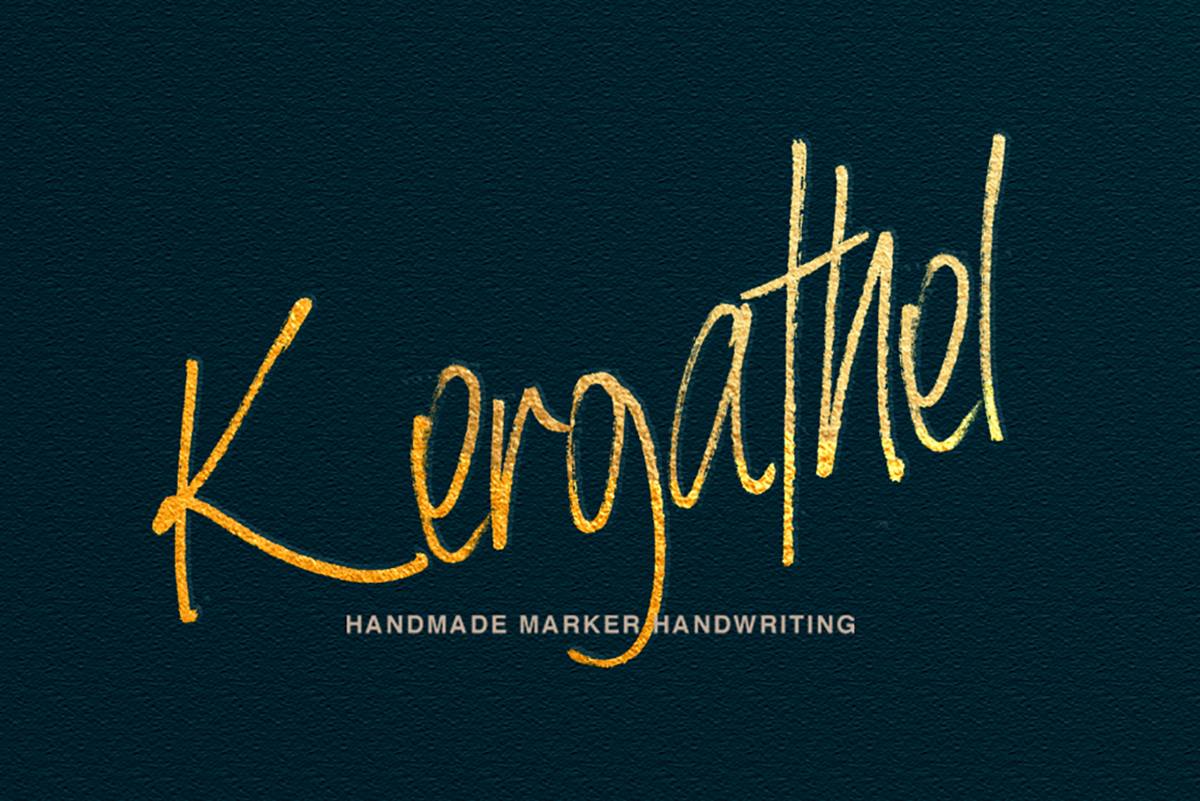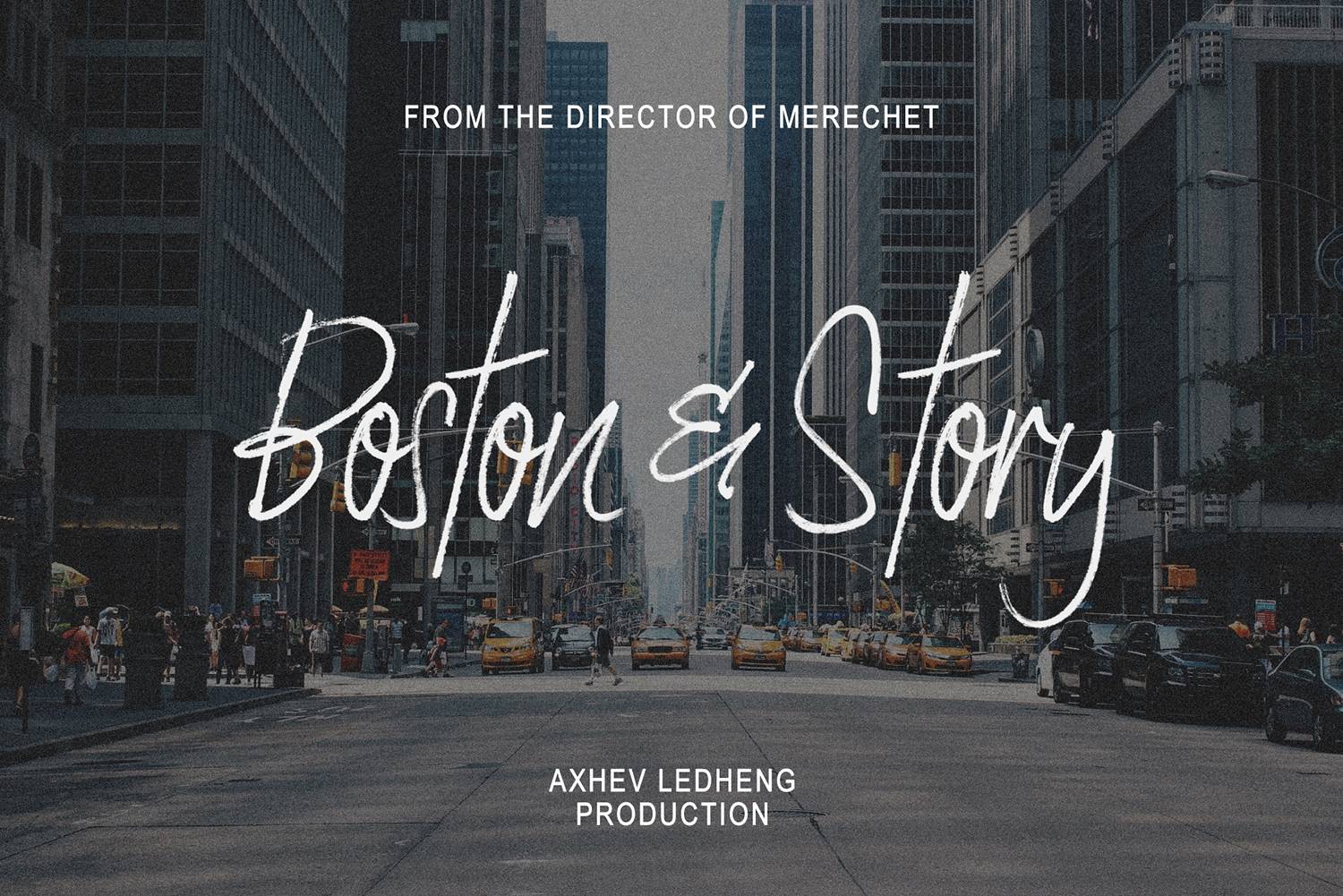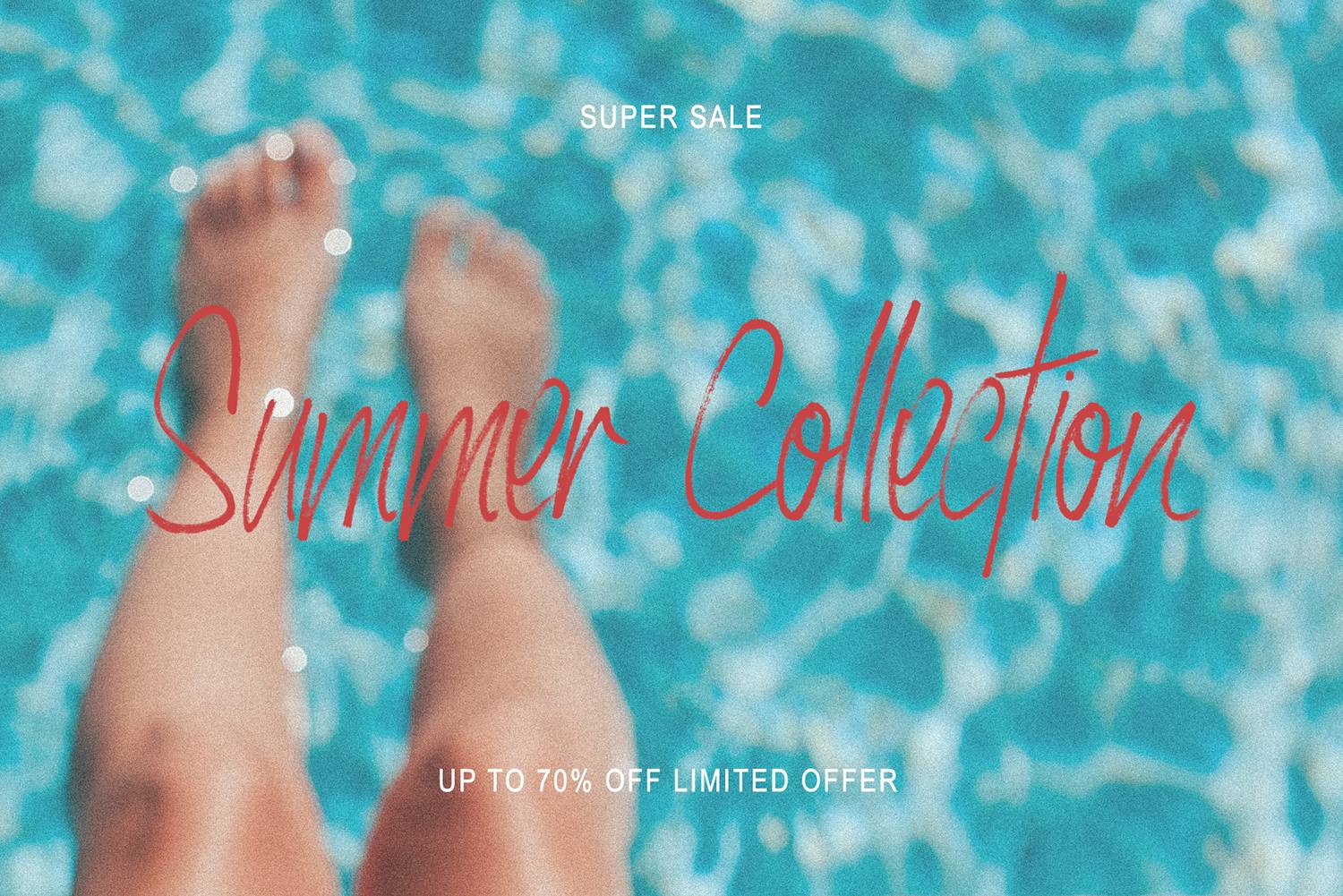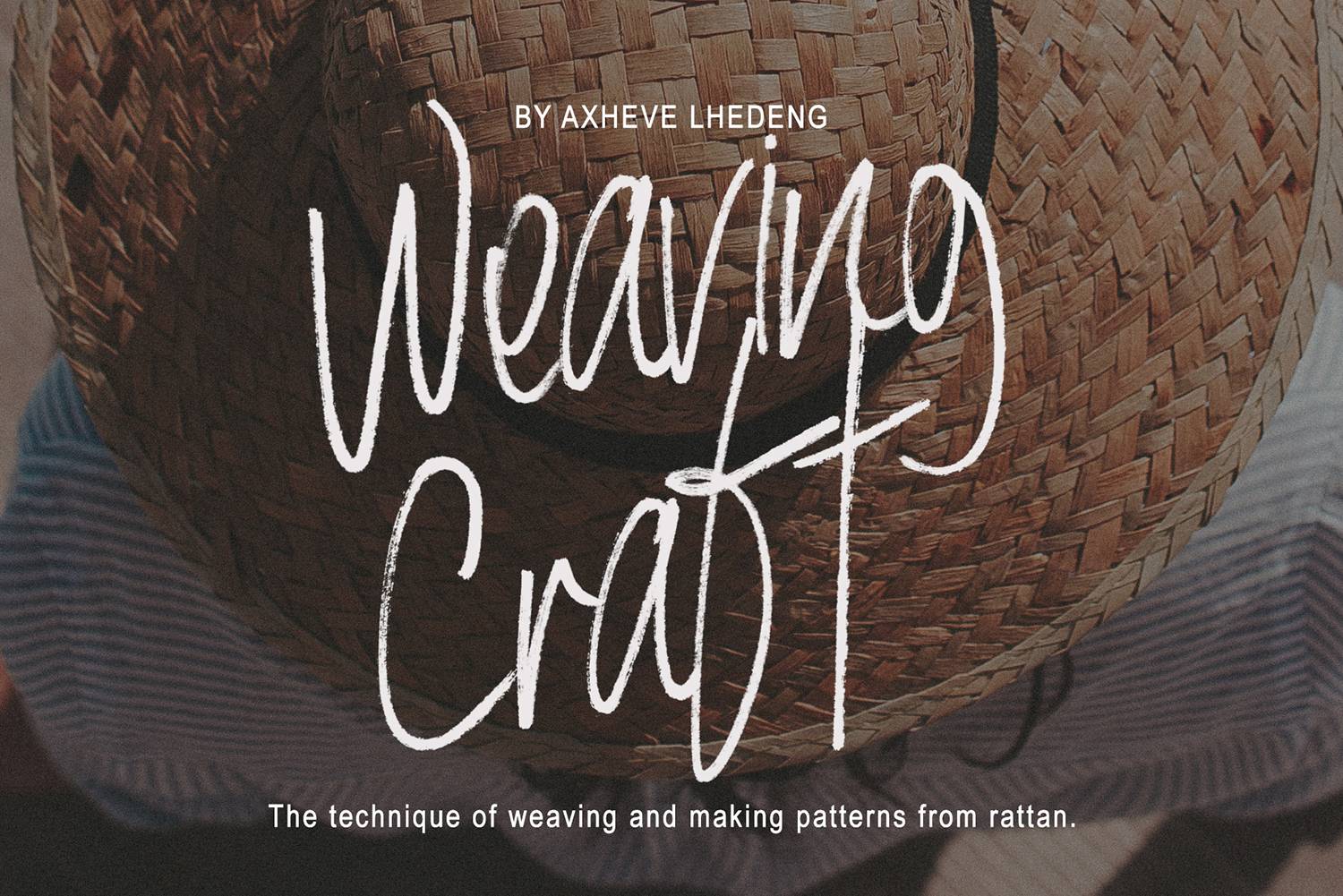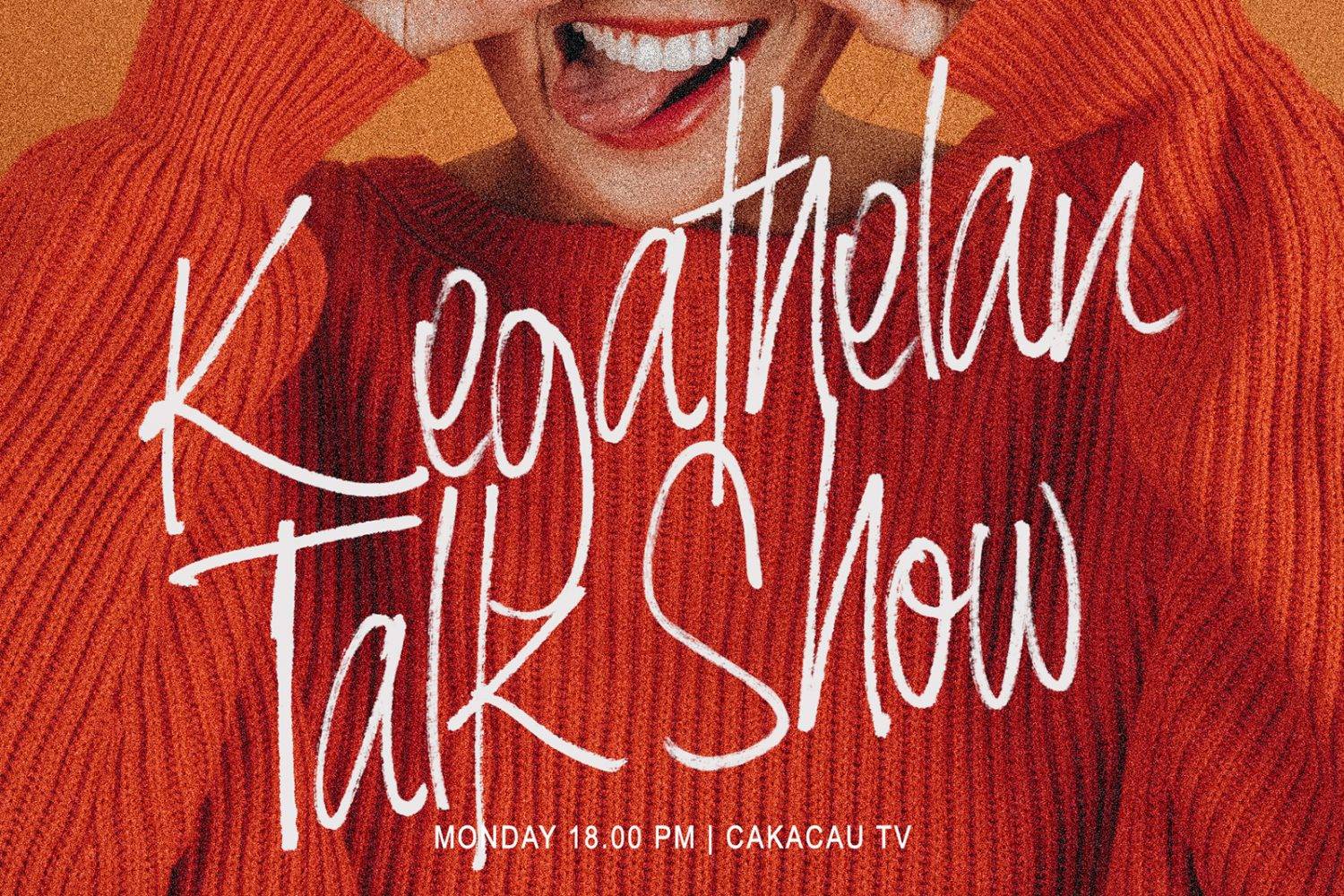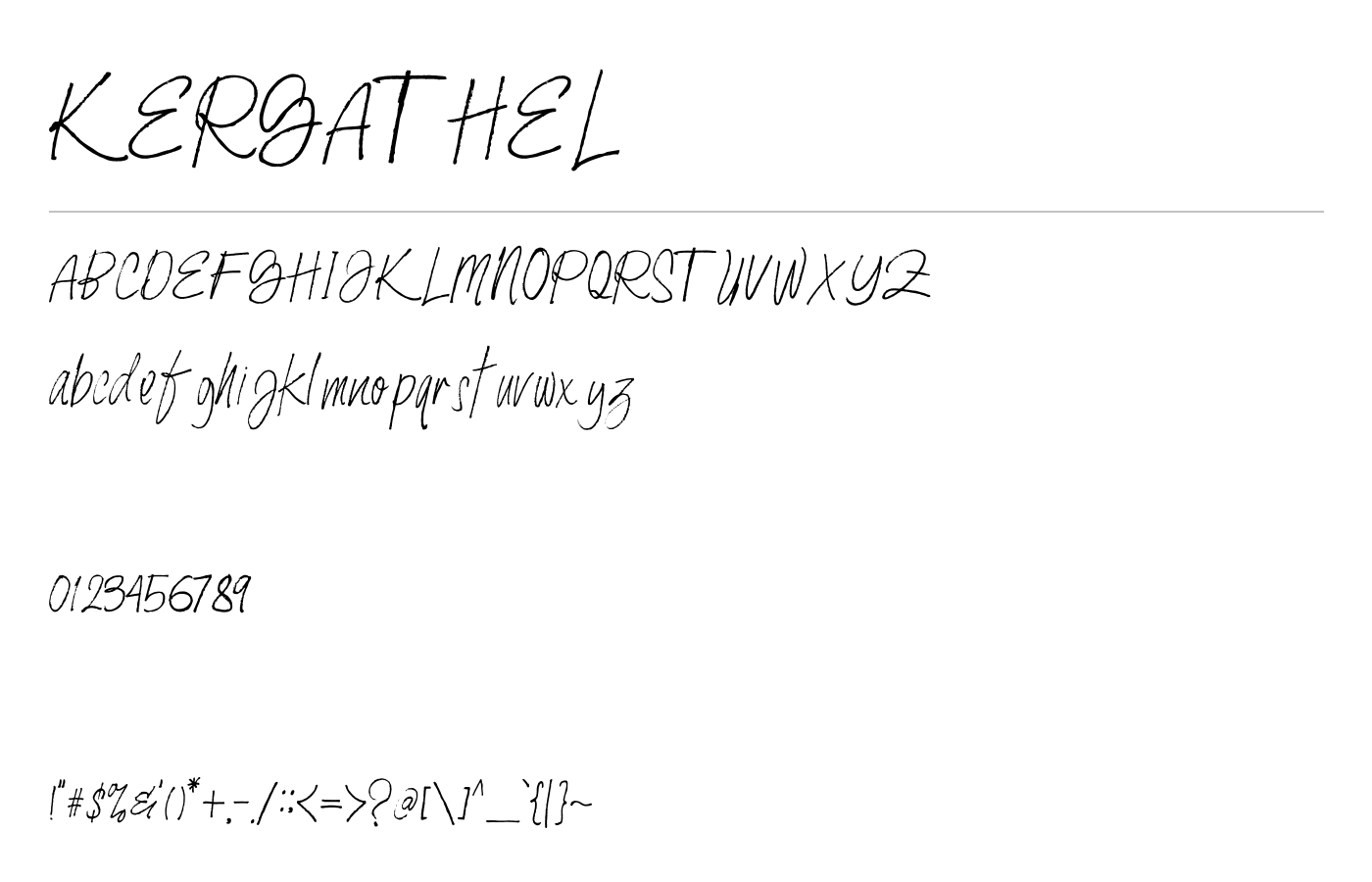
Kergathel is a delicate, handwritten script font with a light weight and narrow width, giving it an airy and personal feel. Its tall, slightly irregular letterforms and gentle stroke variations evoke a casual, creative energy, making it perfect for informal designs, invitations, and artistic branding where a natural, human touch is desired. This font works well in contexts that benefit from an expressive and approachable style, adding charm and individuality to logos, stationery, and social media graphics.
Kergathel Font
About Kergathel Font
| Font family | Kergathel Font |
| Designer | illen nalishawa |